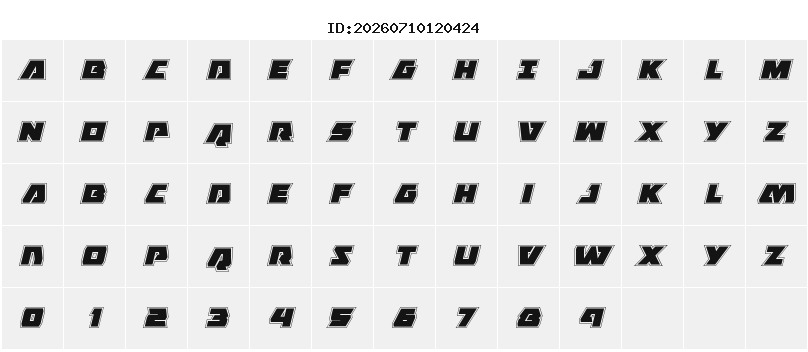
Eagle Strike Academy Italic Preview
About Eagle Strike Academy Italic.ttf
Eagle Strike Academy Italic.ttf is a modern, elegant sans-serif font designed for ultimate readability and visual harmony. Perfect for branding, headlines, web design, and print materials.